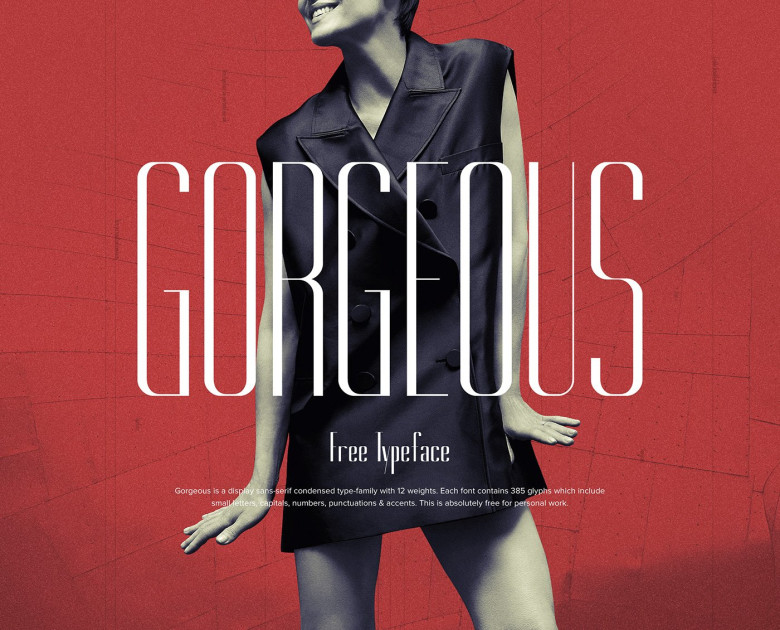
Gorgeous Font Family
Introducing Gorgeous Font Family! A new free fonts, this is a unique font display. Gorgeous Font designed and shared by Rajesh Rajput. Prensa includes 383 characters and cyrillic. Prensa is well suited for various design projects, such as logos, advertising, quotes, packaging design and others.